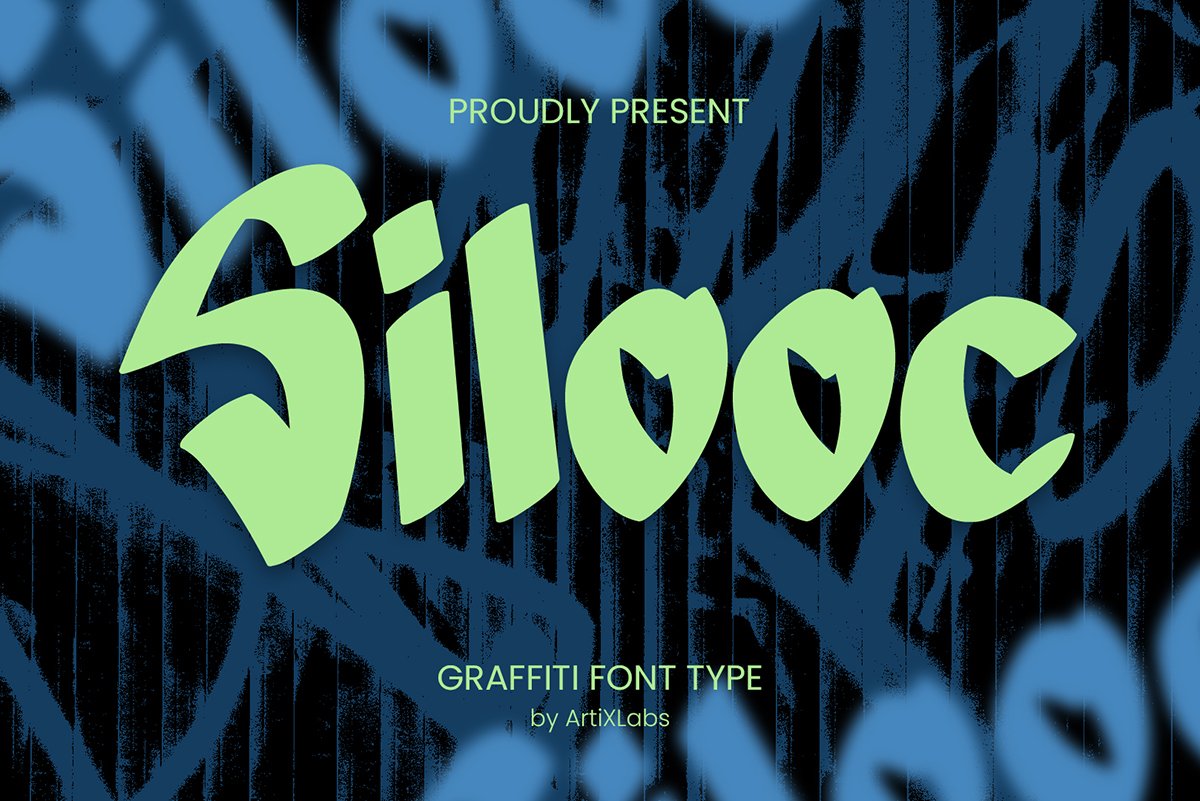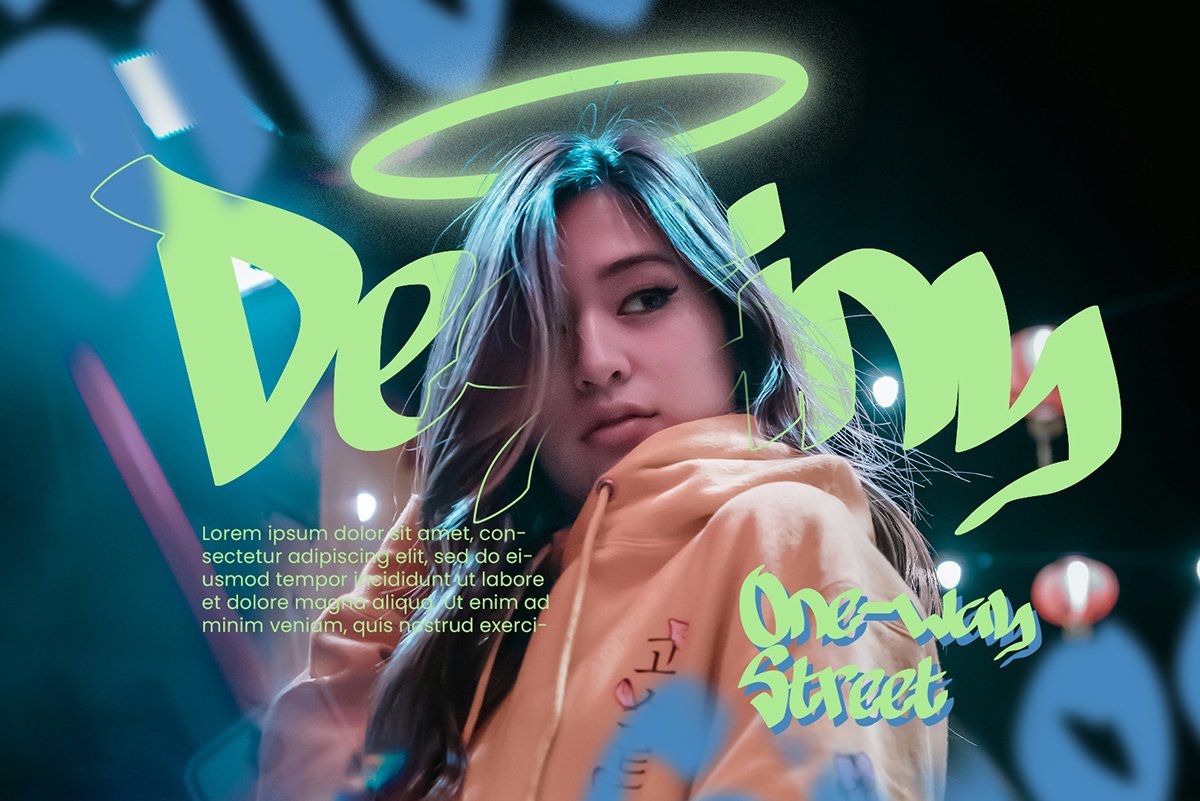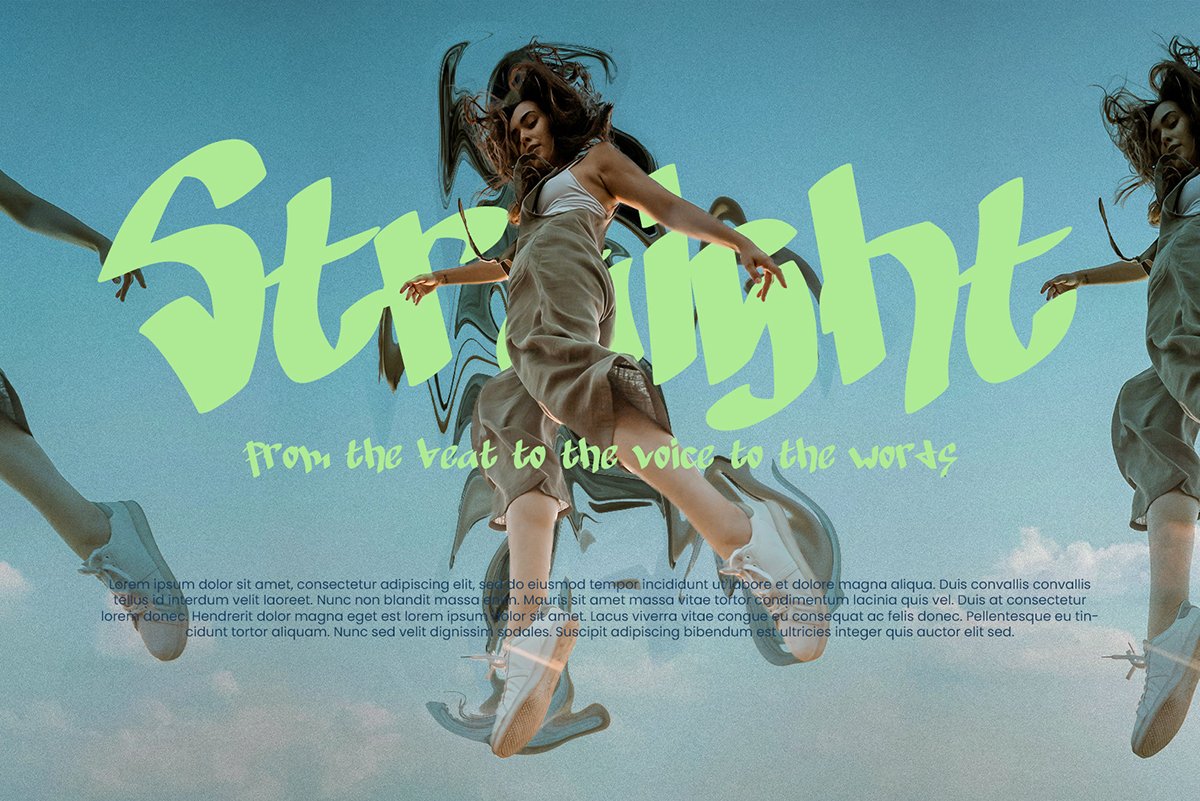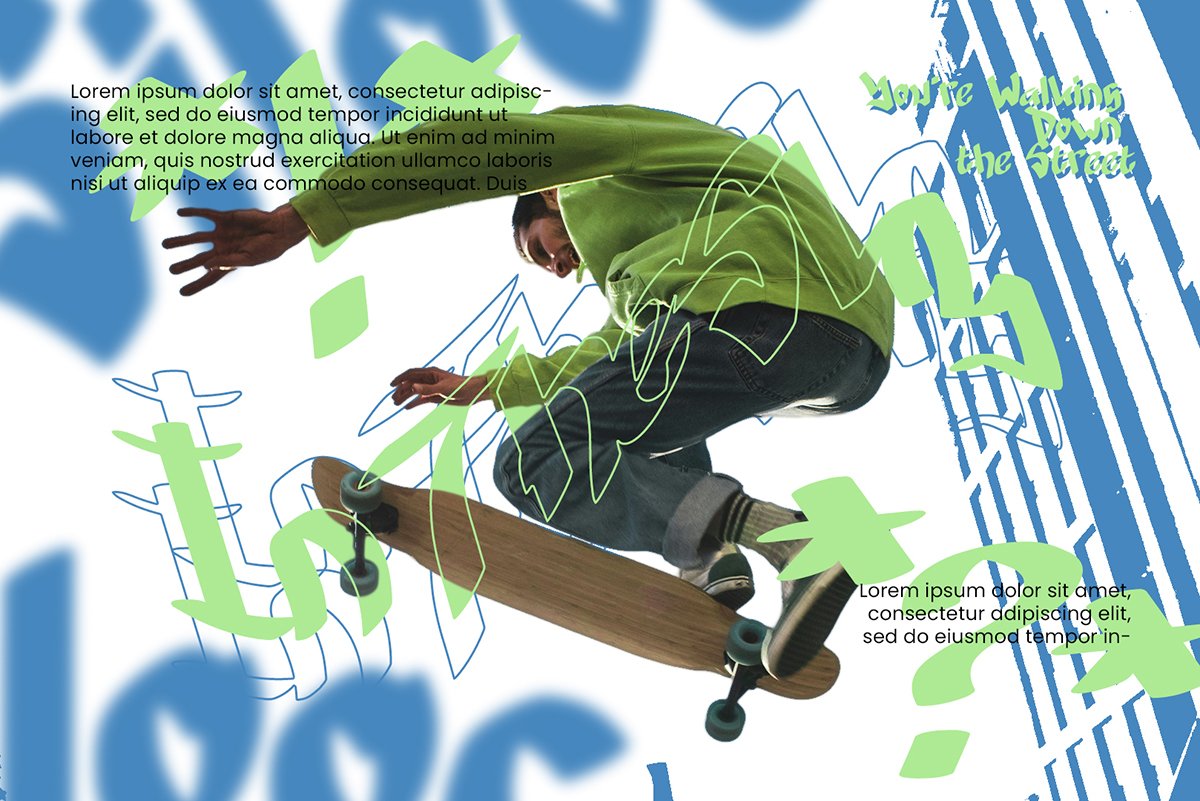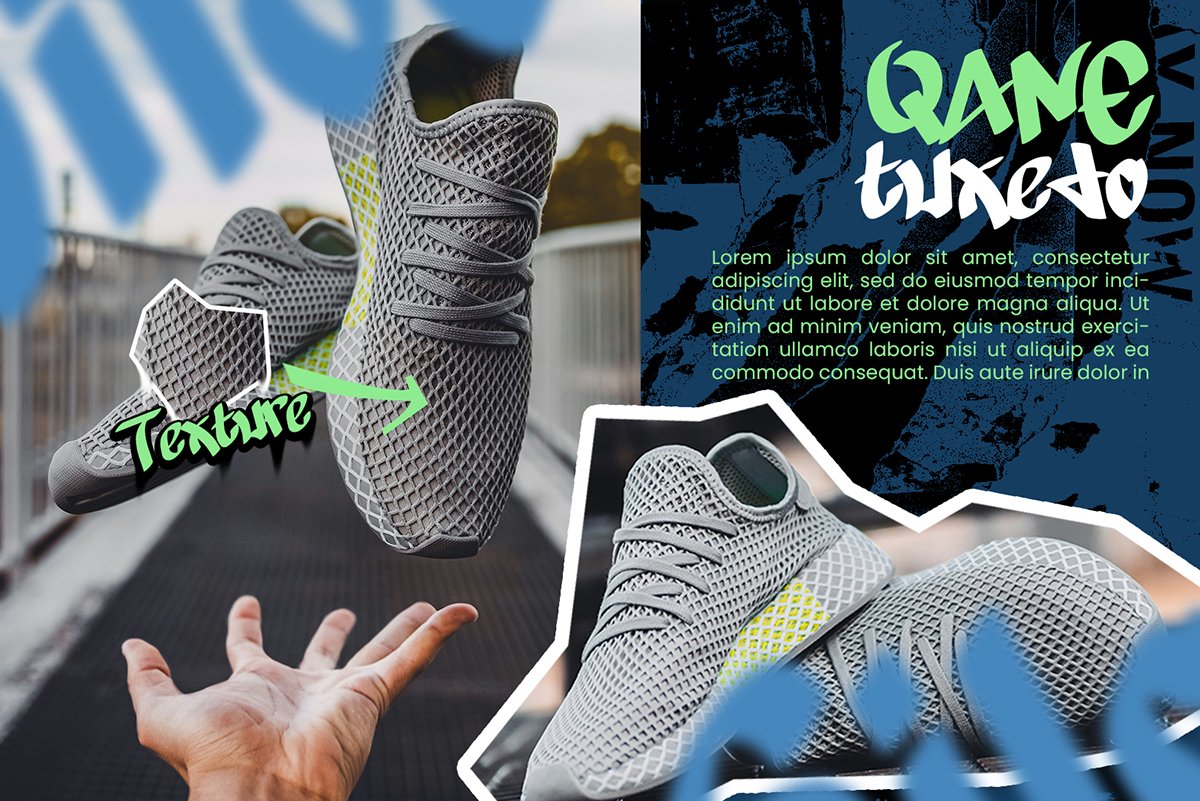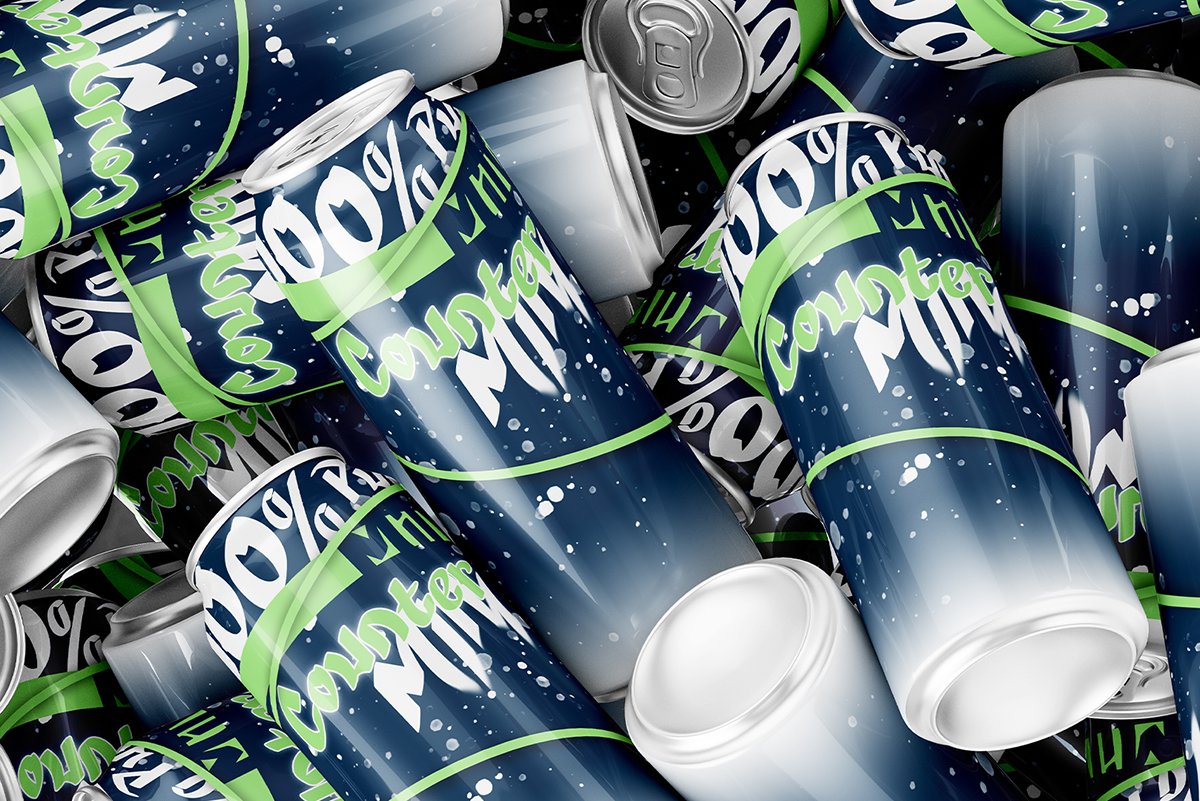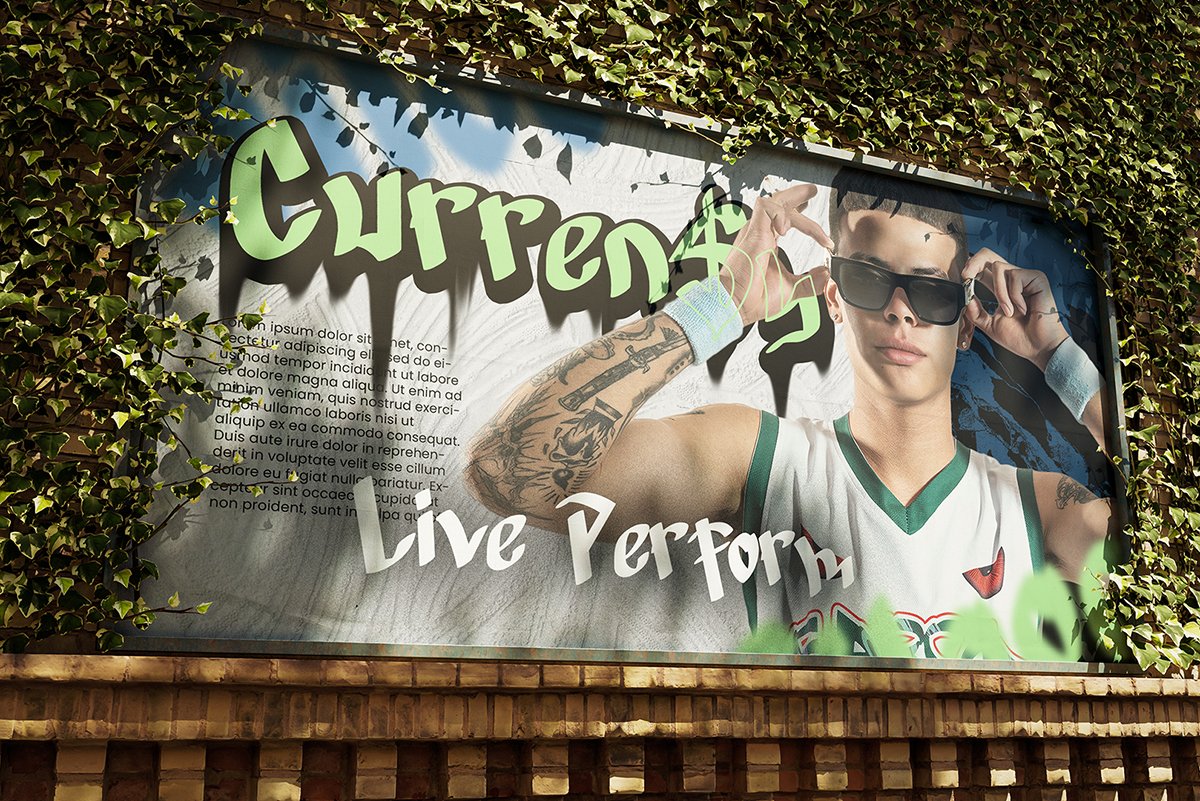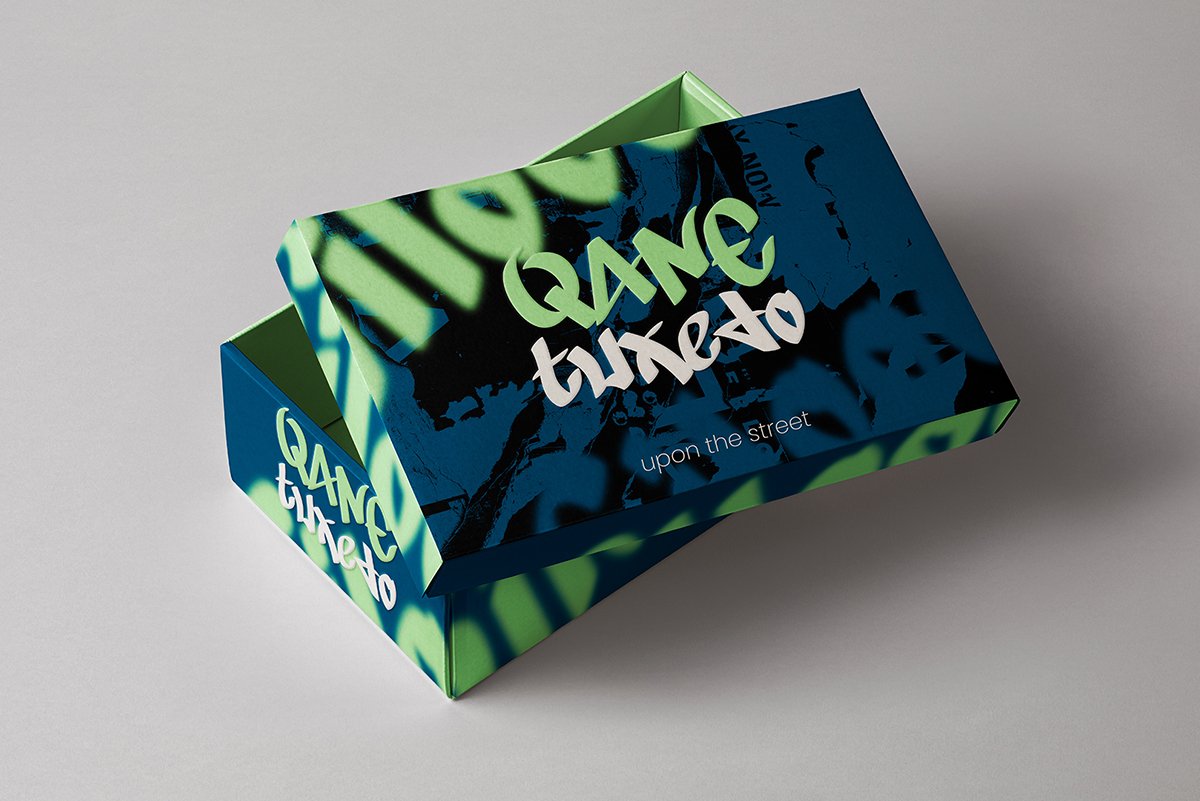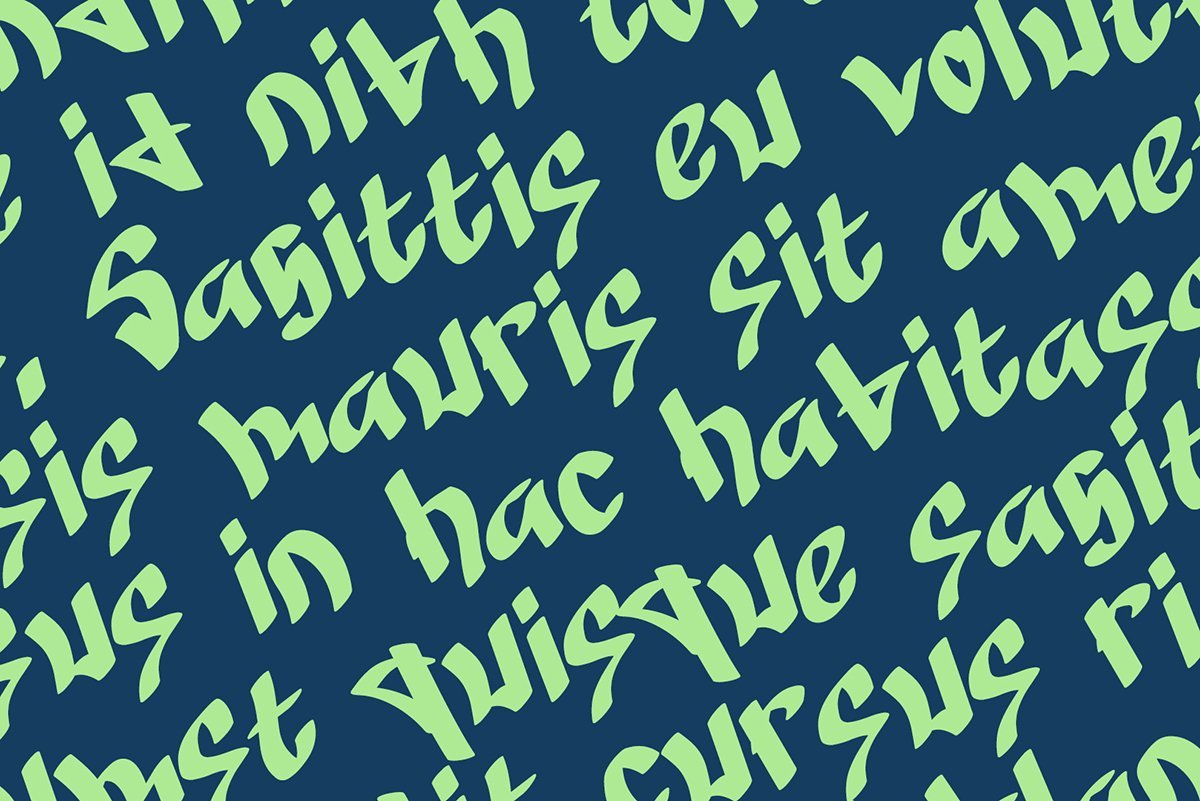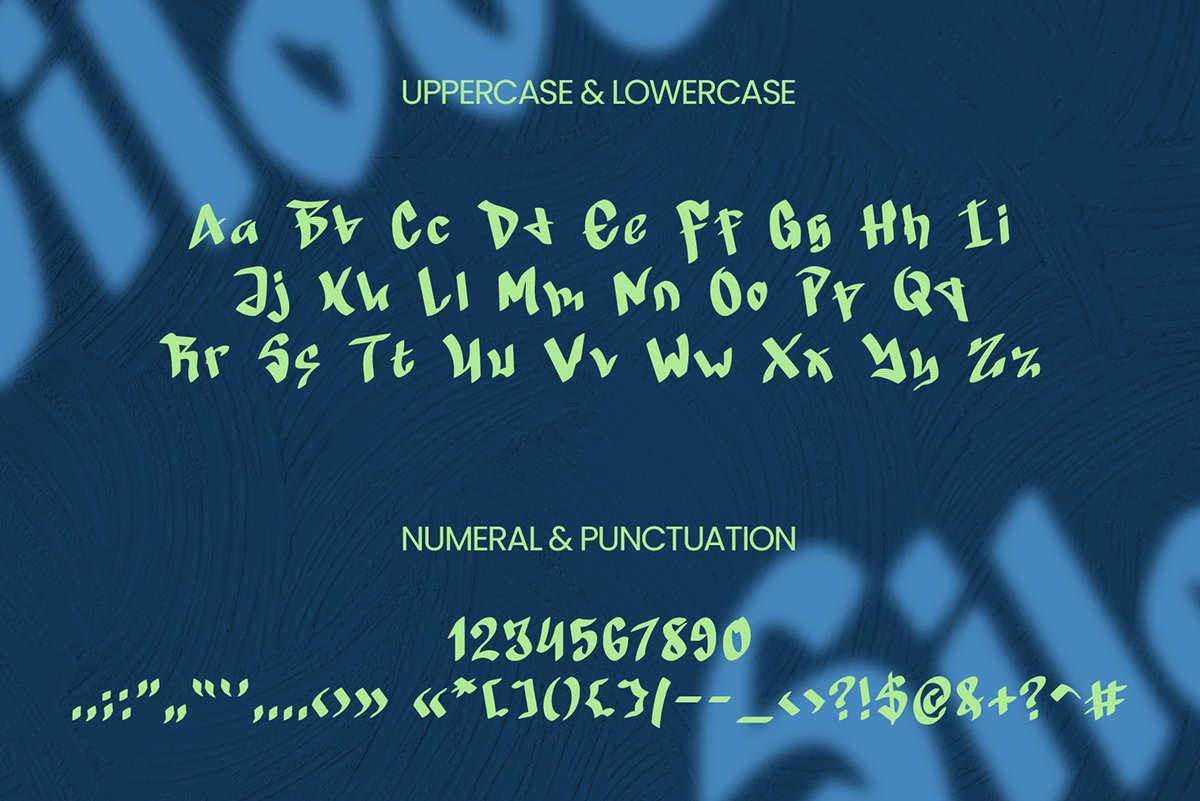
Silooc Graffiti Font – Free Design Resources
Silooc Graffiti Font
Silooc Graffiti Font is a high-energy graffiti font designed for bold and edgy branding. Its dynamic and uneven strokes are perfect for music album covers, skate shop logos, or urban fashion branding. Whether you’re targeting a youthful audience or creating art that breaks the rules, this font delivers a rebellious and creative edge.